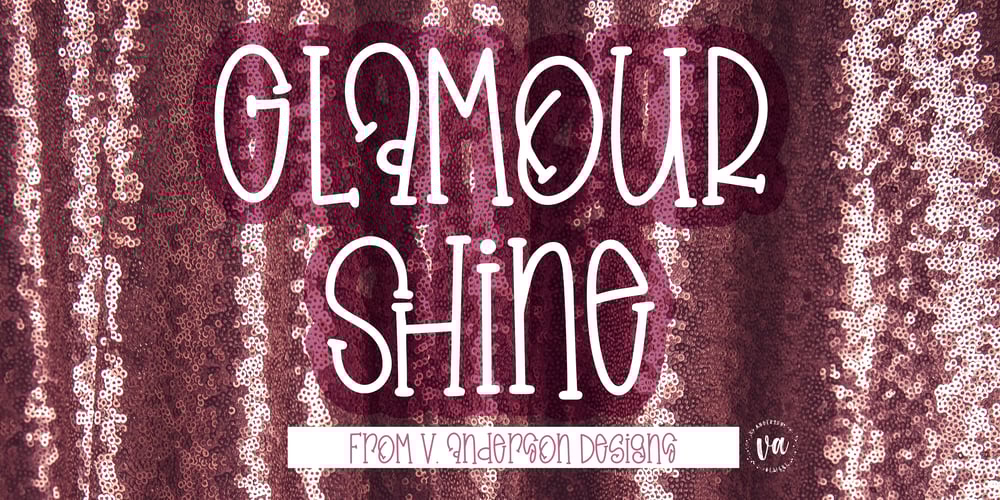
Glamour Shine Font Family was designed by Veronica Anderson and published by V Anderson Designs. Glamour Shine contains 1 styles and family package options. Glamour Shine is a handwritten serif mixed-case/unicase font to give your products that handwritten, spunky feel. It’s perfect for greeting cards, fun branding, and crafting files.